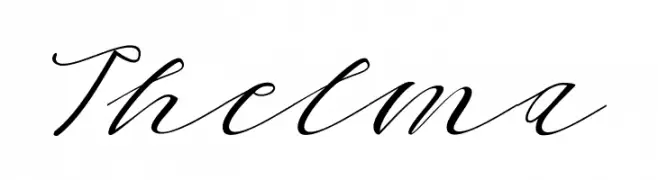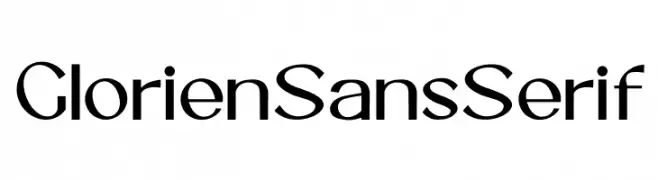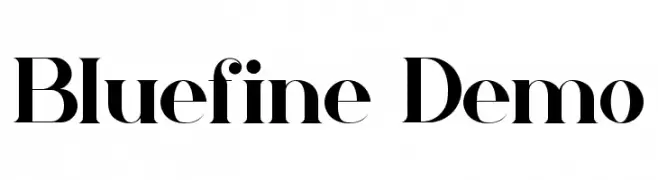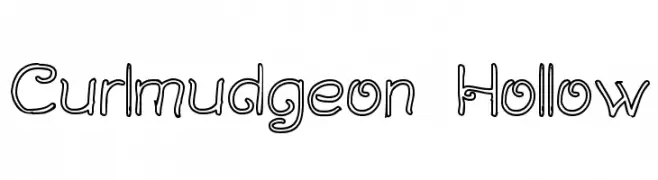
An elegant script font with high contrast and flowing cursive style.
Modern sans-serif font with geometric shapes.
A bold, high-contrast serif font with a classic yet modern style.
A bold, geometric font with a strong, industrial style.
A playful, hollow, hand-drawn font with a whimsical and decorative style.
A bold, playful font with blocky letters and unique cut-out shapes.